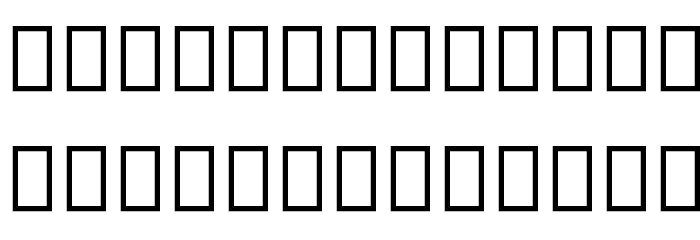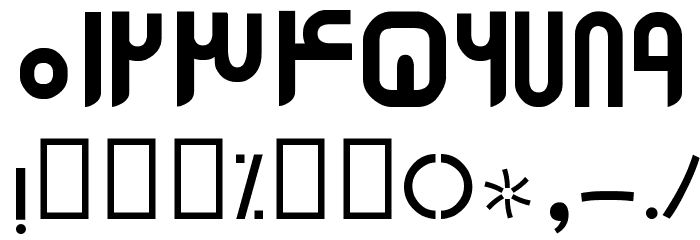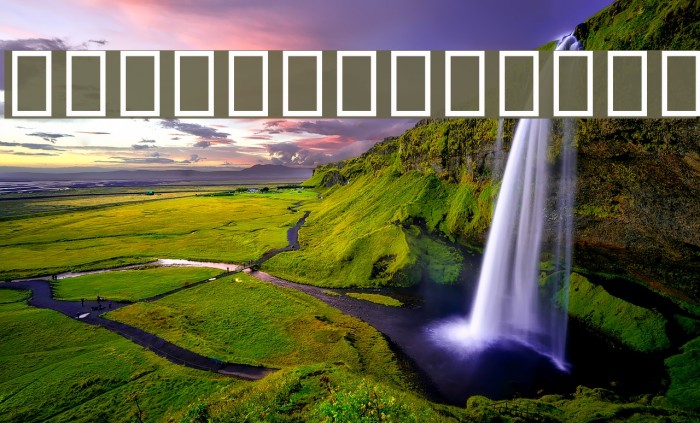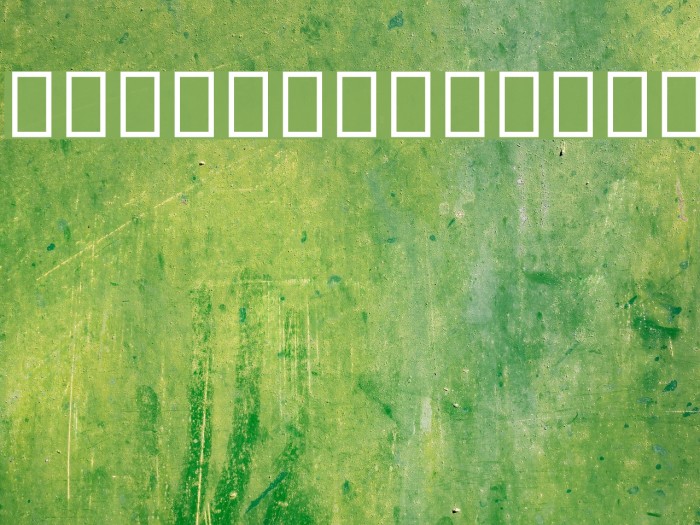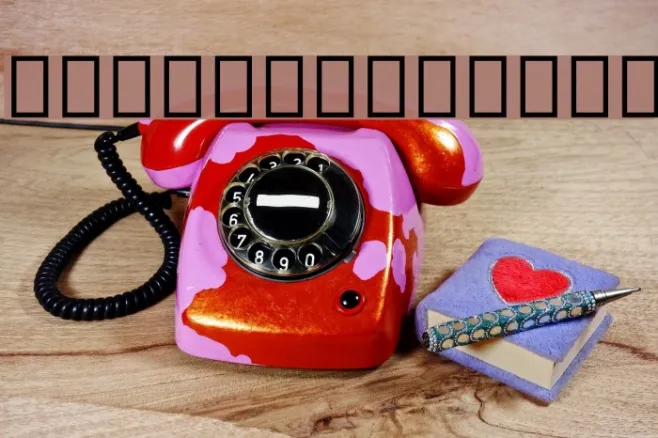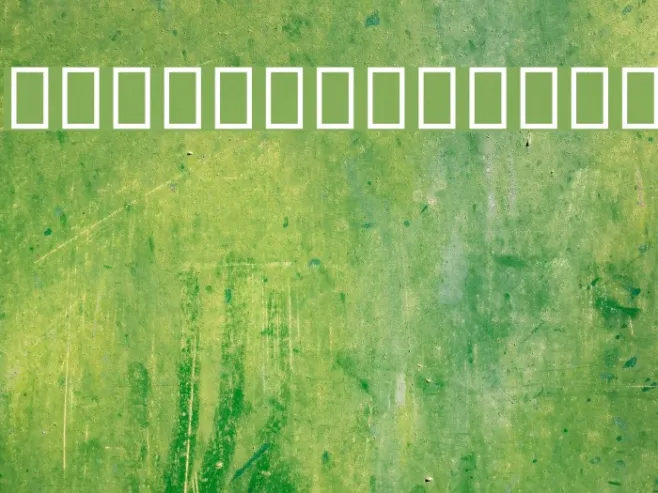
Sardaar Font
This font features a bold and futuristic design with a distinctly geometric style. The characters are crafted with sharp angles and clean lines, giving it a modern and edgy appearance. The font's unique structure makes it stand out, with each letterform exhibiting a sense of uniformity and balance. The uppercase and lowercase letters maintain a consistent height, while the numerals and special characters are designed to complement the overall aesthetic. This font is ideal for projects that require a contemporary and innovative look.
A bold, geometric font with a futuristic and modern design.
- Proposed Projects: Ideal for technology branding, sci-fi movie posters, video game titles, and modern advertising campaigns.
- Use Case: Logos, Headlines